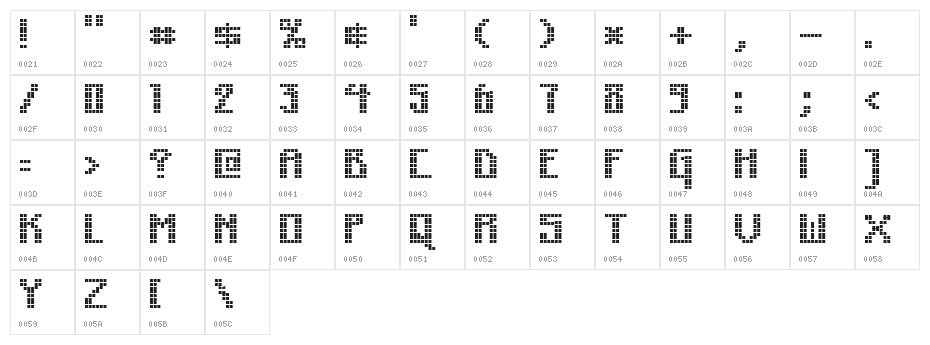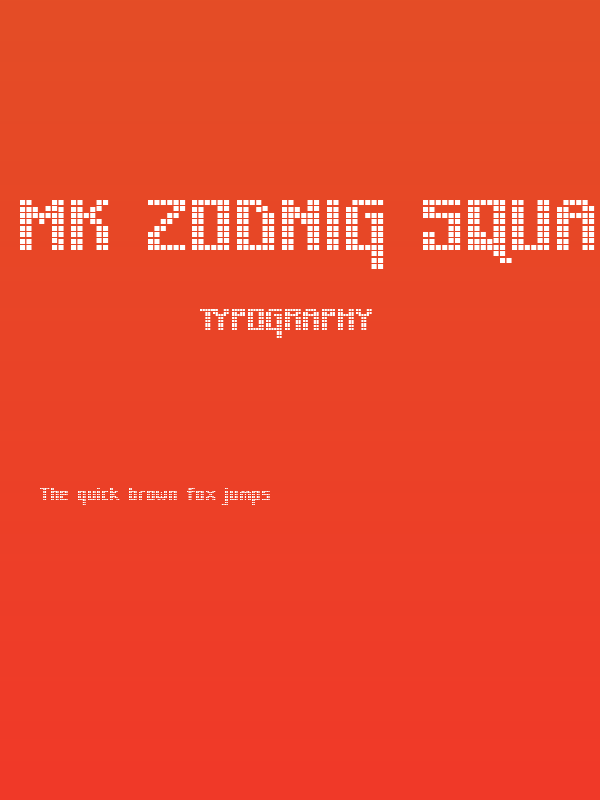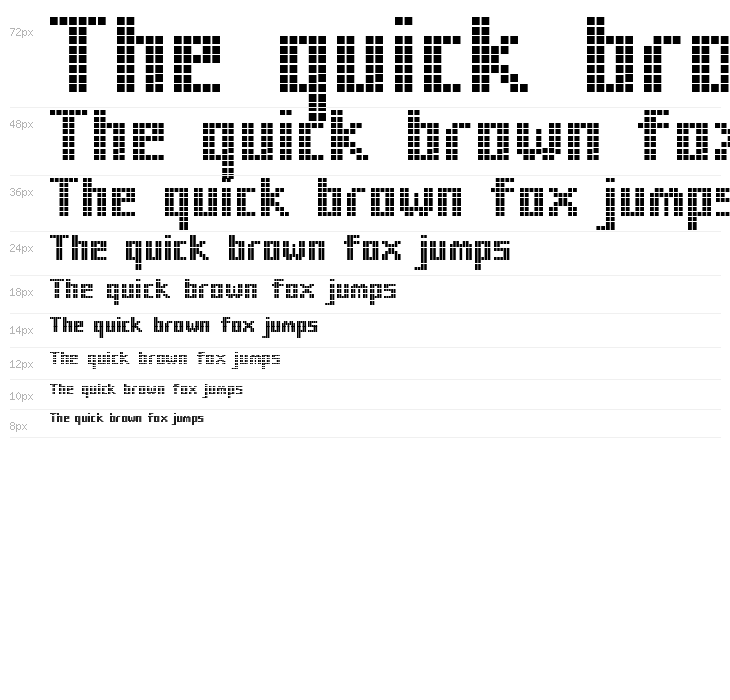
MK Zodnig Square Font
MK Zodnig Square Description
This font features a unique pixelated design, reminiscent of early digital displays and retro video games. Each character is constructed from a grid of small squares, giving it a distinct blocky appearance. The uppercase and lowercase letters maintain a consistent height, while the numbers and special characters follow the same pixelated style. The overall look is geometric and structured, making it ideal for projects that require a digital or technological aesthetic. The uniformity in character design ensures readability while maintaining its decorative appeal.
| Overall Style | Retro, Digital |
| Proposed Projects | Ideal for video game design, digital art projects, retro-themed posters, and tech-related branding. |